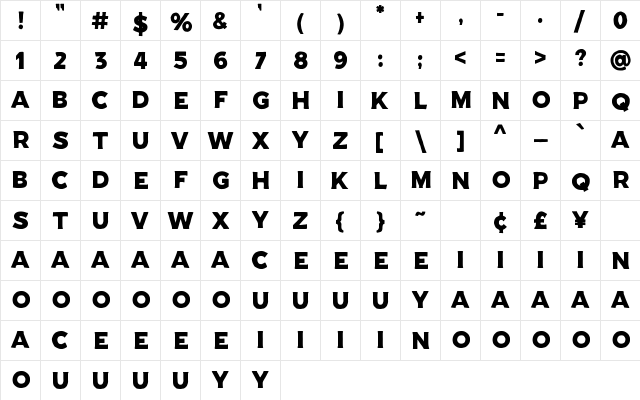
RECKFIELD-NORMAL Regular
| Designer | HOLIS MAJID |
Design Context for RECKFIELD-NORMAL Typeface
RECKFIELD-NORMAL is a composed and adaptable typeface that performs quietly and consistently across a wide range of design contexts.
Pro Tip: Use RECKFIELD-NORMAL in both headline and body roles to test its range before committing to a single application.